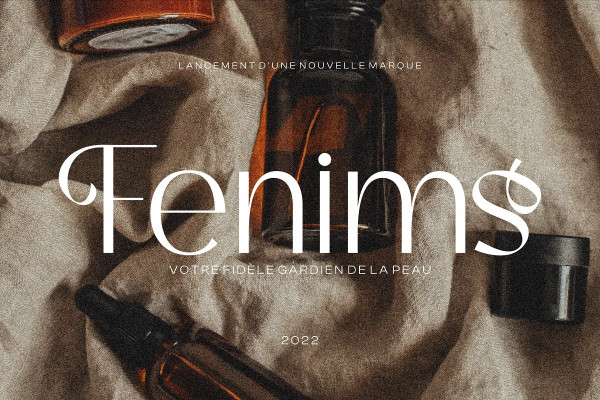
Bagina Font
Bagina Font a minimal and casual serif font with alternates and ligatures. This font brings a luxurious and clean style to your website, it can also be used as a brand logo such as fashion, jewelry, cosmetics etc.